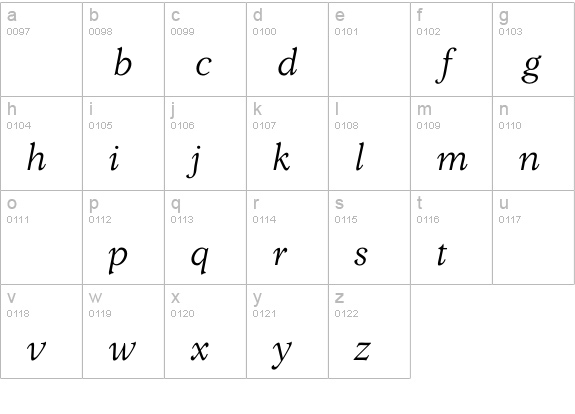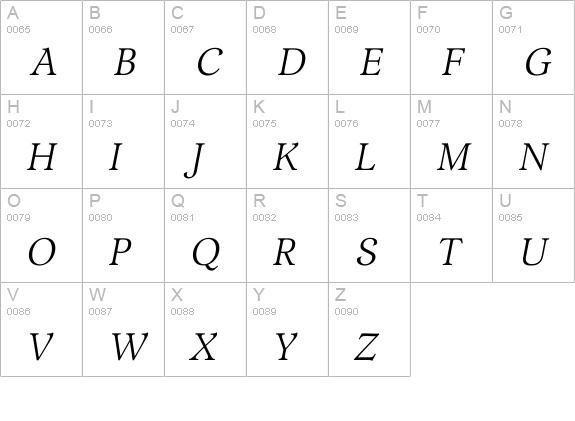
LombaBookItalic Font Details
Introducing LombaBookItalic font - a timeless typeface that effortlessly combines elegance with readability. This italic variant of the LombaBook font exudes sophistication and style, making it perfect for a wide range of design projects. The flowing curves and slanted angles of LombaBookItalic lend a touch of finesse to any text, from book covers to invitations to branding materials. Its classic yet modern appeal makes it a versatile choice for both print and digital applications. And the best part? LombaBookItalic is available for free download at FontsMarket.com. Simply visit the website to add this exquisite font to your collection today. Elevate your designs with LombaBookItalic and bring a touch of refinement to your typography.